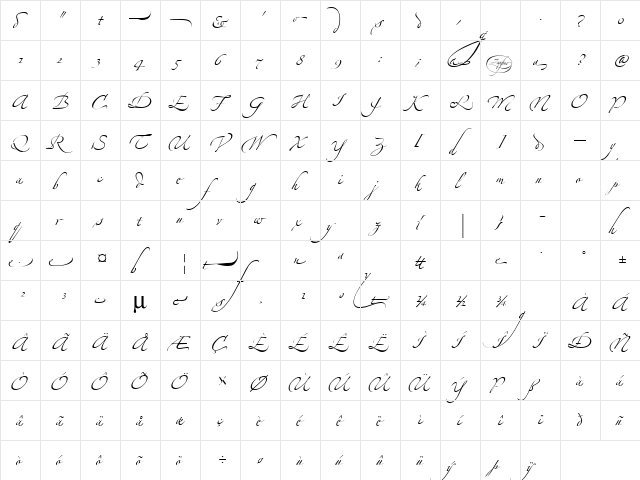
Zapfino Linotype Four Regular
Design Context for Zapfino Linotype Four Typeface
Zapfino Linotype Four is a composed and adaptable typeface that performs quietly and consistently across a wide range of design contexts.